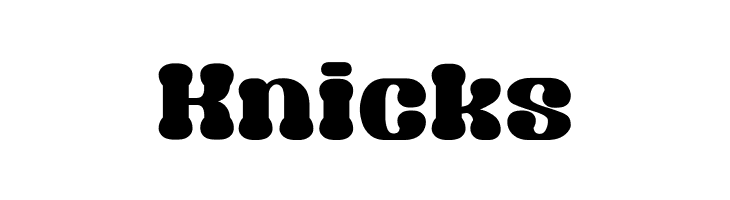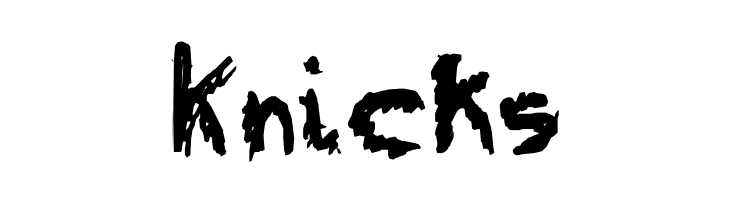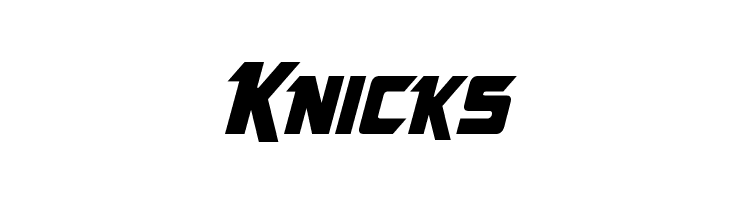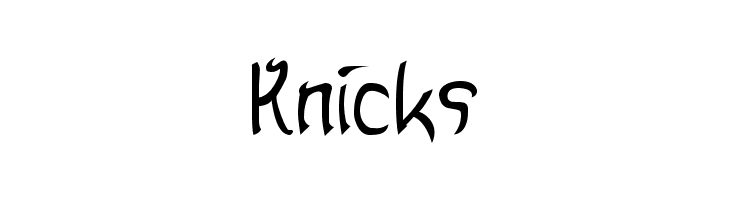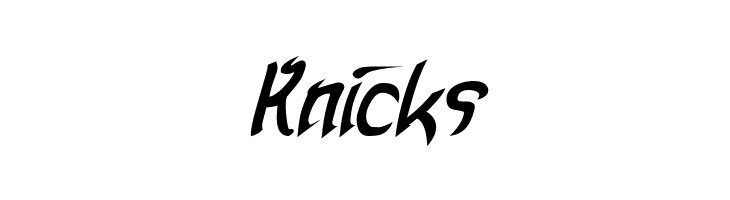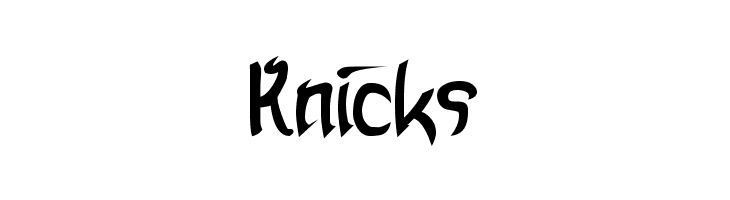
• Syouwa Retro Pop
( Goma Shin - gomaricefont.web.fc2.com/ )
A bold, retro font with a playful, bubbly design.
• Syouwa Retro Pop__G
A bold, retro-inspired font with rounded, playful letterforms.
• Syouwa Retro Pop__G
( Fonts by Goma Shin - Shintarou Nakayama www.geocities.jp/gomarice_font/ )
A bold, retro-inspired font with rounded, playful characters.
• Table in a Bear Suit
• Tacketil
A bold slab serif font with strong, block-like serifs and uniform character design.
• Taibaijan
A bold, dynamic font with sharp, angular lines and an artistic flair.
• Taibaijan Bold
A bold, brush-like font with a dynamic, calligraphic style.
• Taibaijan Bold Italic
A bold, italicized font with dynamic, flowing characters and strong slant.
• Taibaijan Italic
A bold, italic font with dynamic strokes and a modern, artistic flair.
• Takara
( Fonts by Neale Davidson - www.pixelsagas.com )